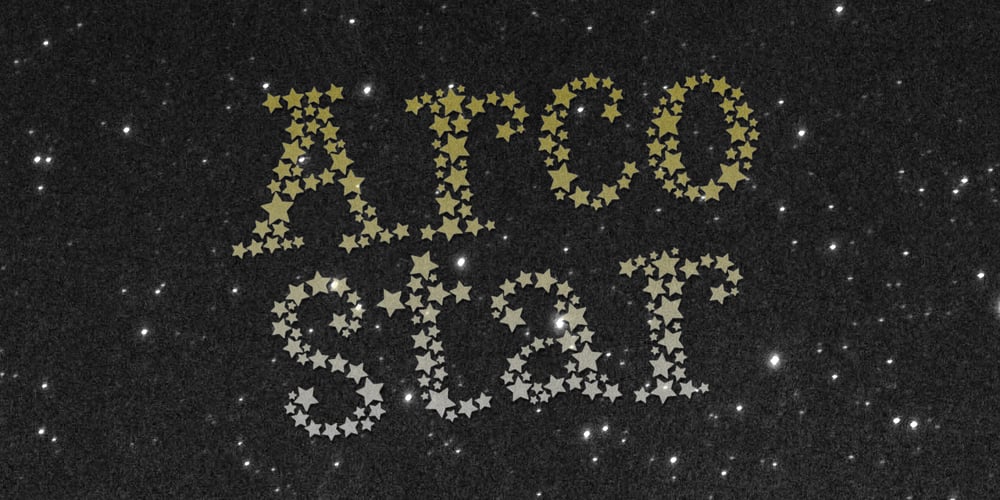
Arco Star Font Family was designed by Luke William Turvey, Natsuko Hayashida and published by Okaycat. Arco Star contains 3 styles and family package options. Arco Star is a beautiful font made entirely of tiny stars, arriving with a family of styles so many different effects are possible. Arco Star is extended, containing European accents and ligatures so it is perfect for international publications. Arco Star pairs well with Arco Web and Arco Crayon from Okaycat fonts.